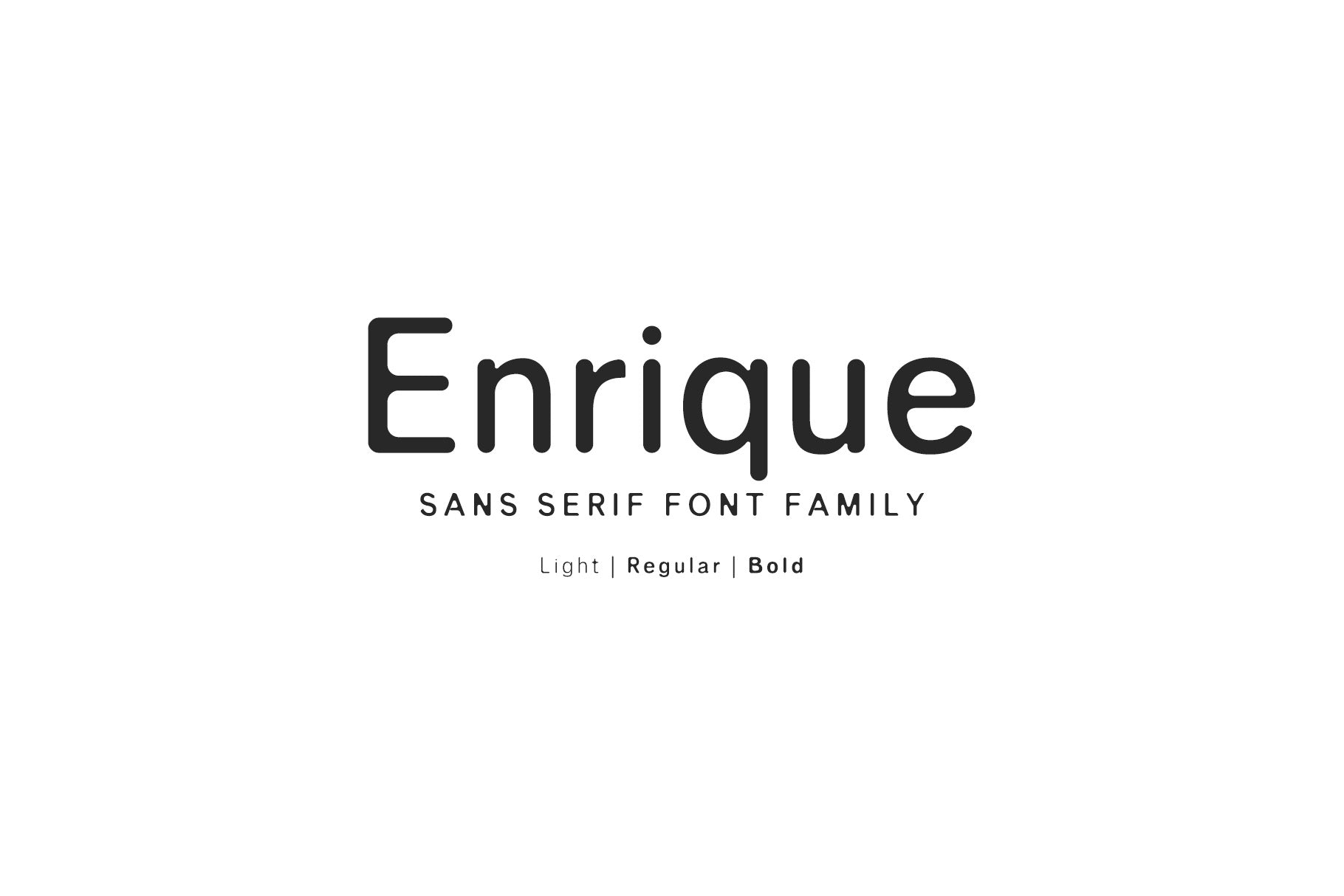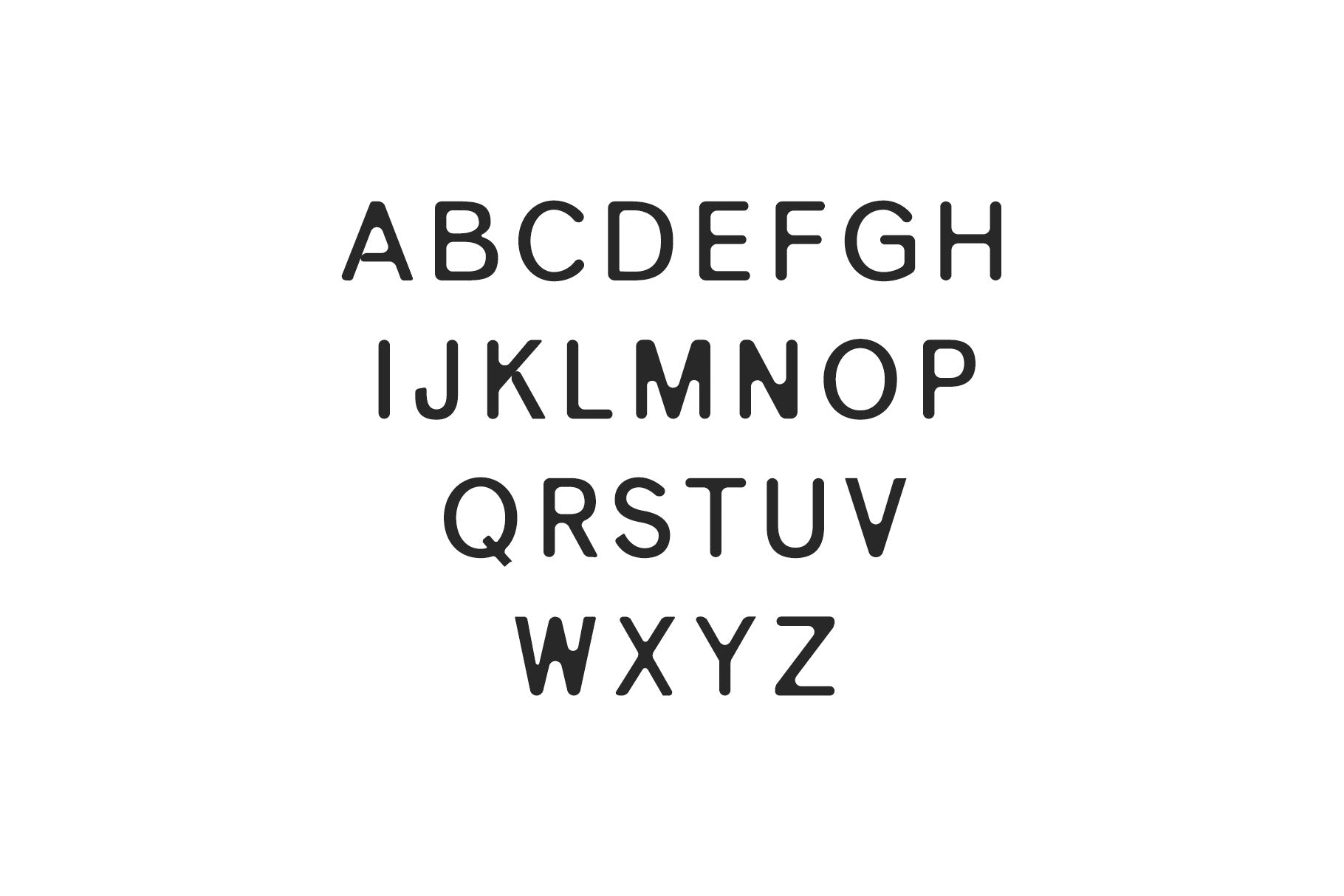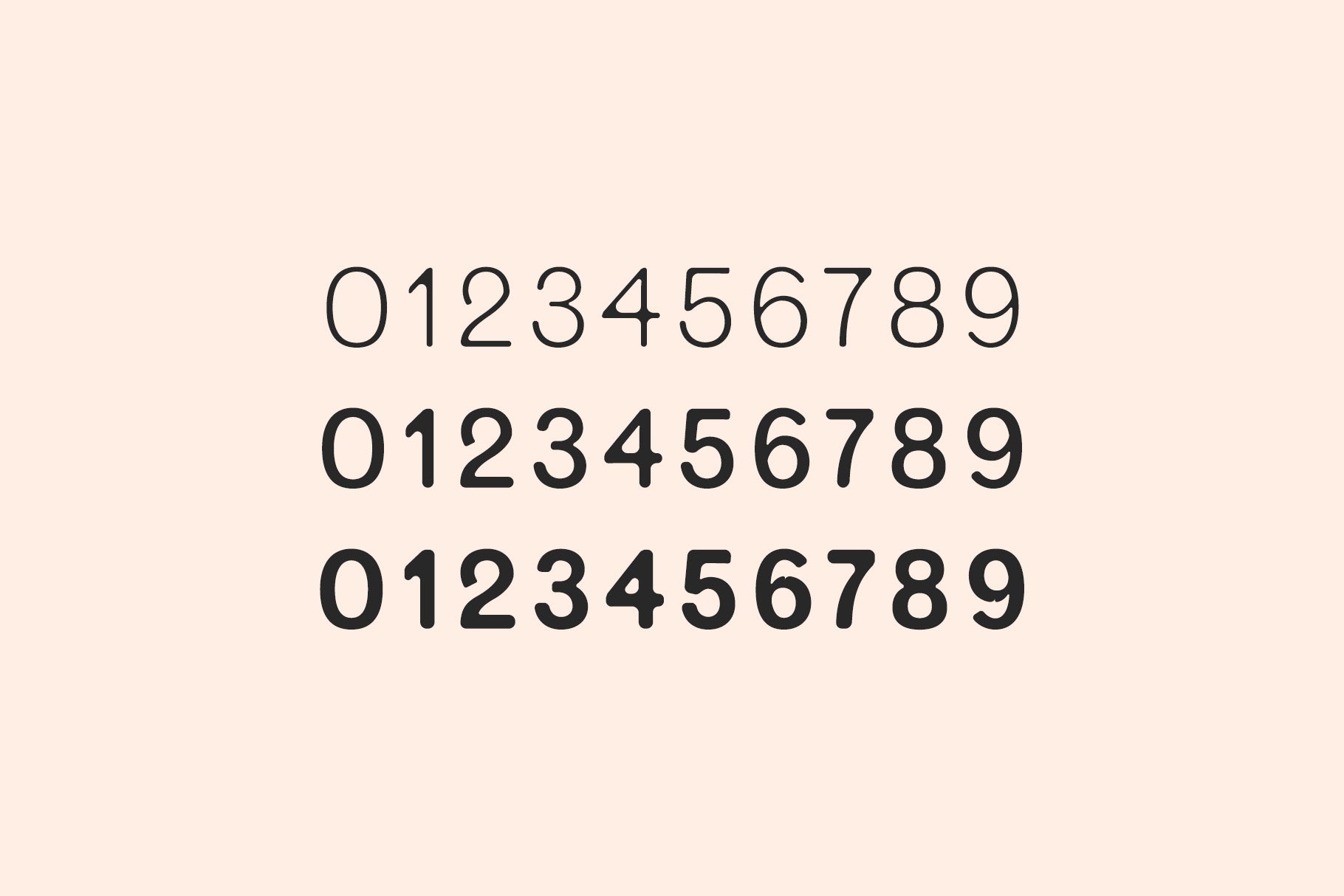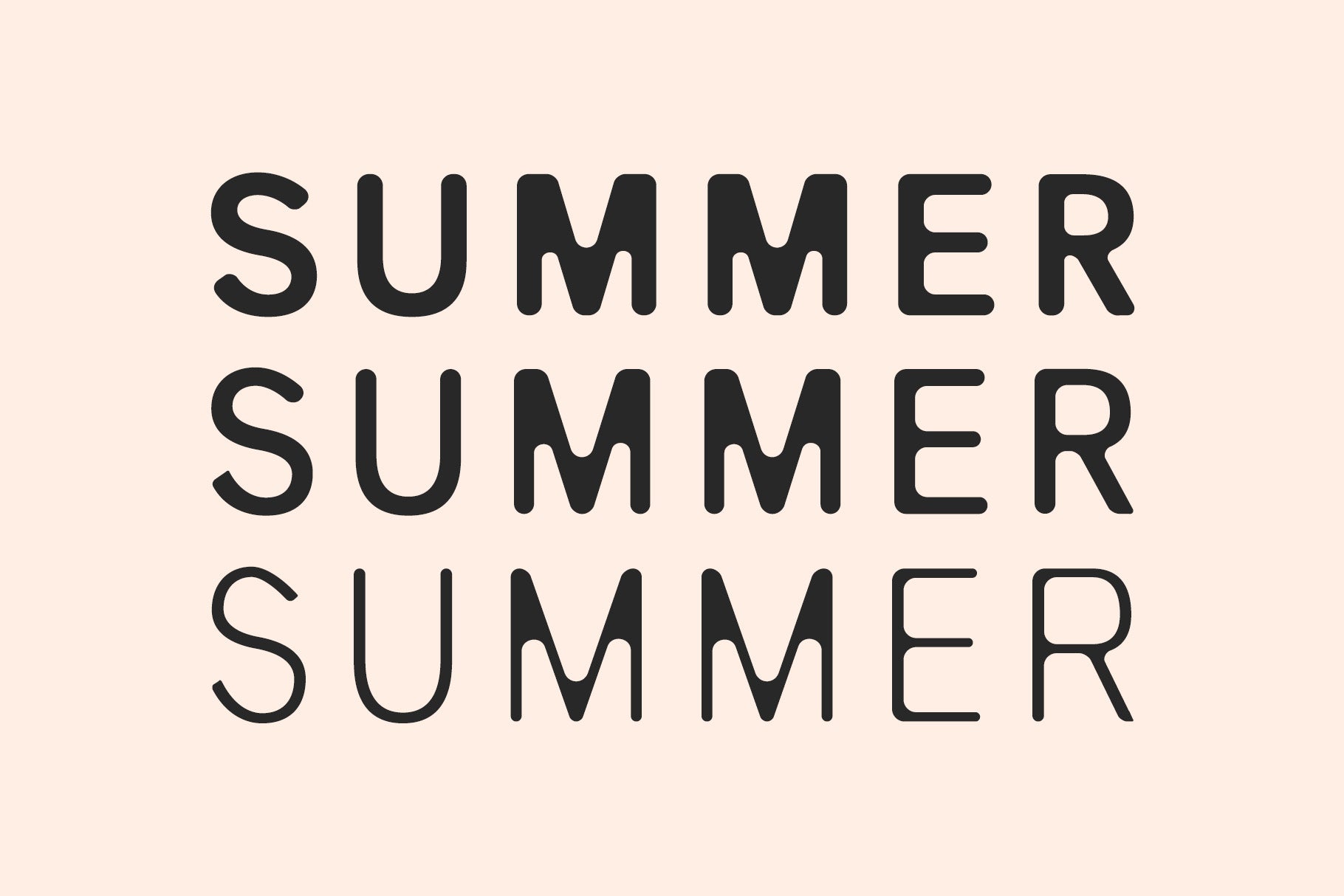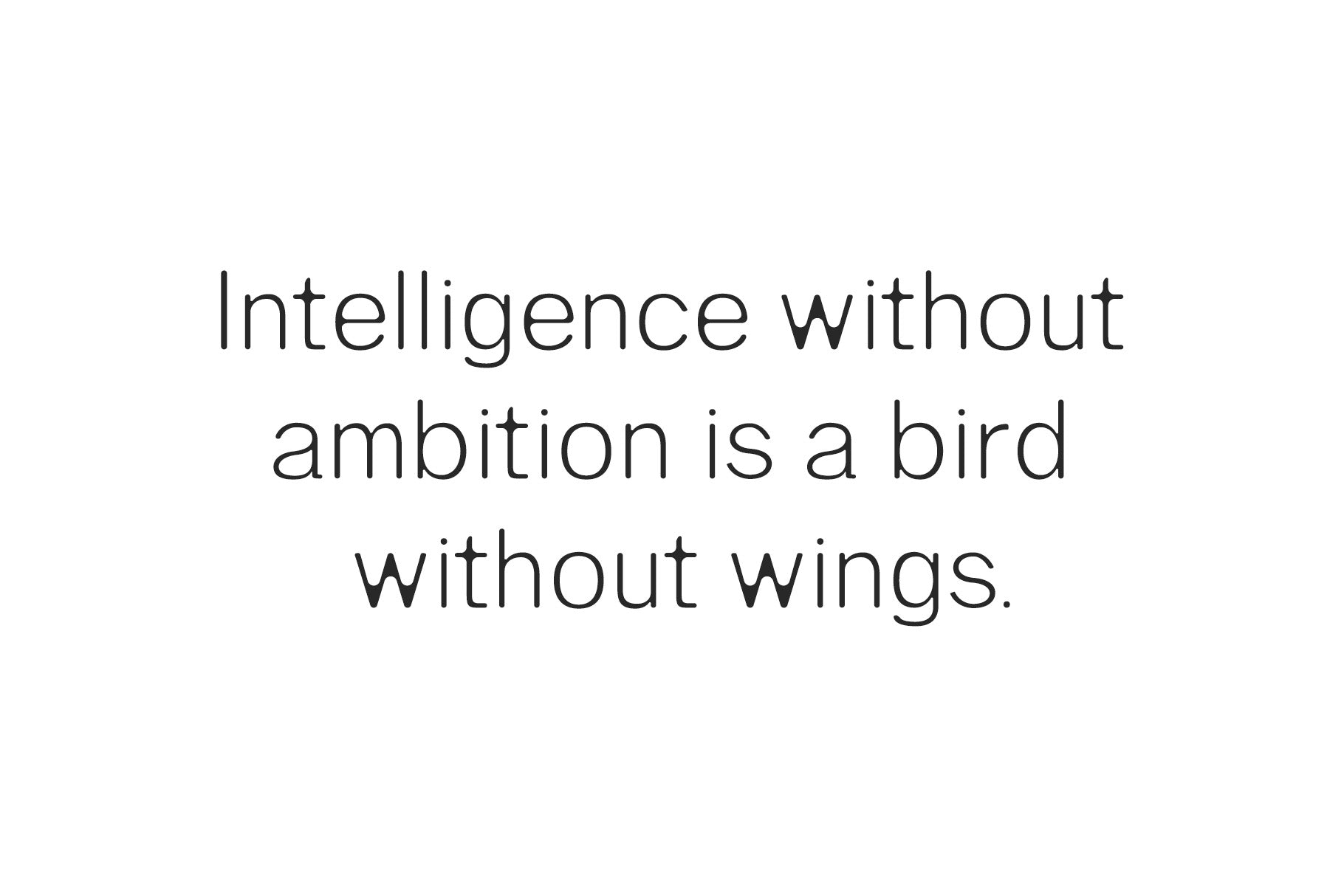
Enrique Round is a beautiful and clean sans serif font family, ideal for creating well-constructed designs with a touch of imperfection and irregularity. This font looks gorgeous as a display/headline, and can give your designs a ton of grace and style.
Included Features:
Font Weight: Regular, Light, and Bold
Uppercase Multilingual Letters
Lowercase Multilingual Letters
Numbers & Punctuation